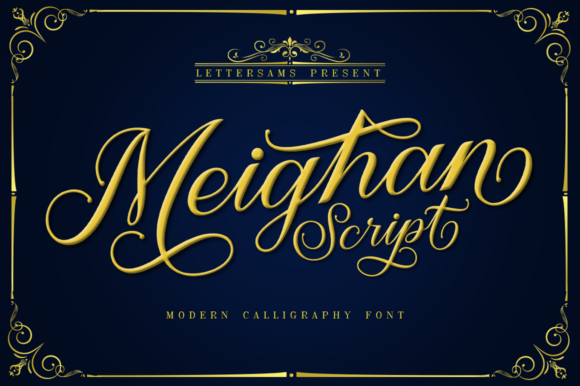
Meighan Script Font
Introducing Meighan Script Font, a script masterpiece from Lettersams, designed to add a touch of elegance and personalization to your creative projects. This modern calligraphy font exudes a timeless charm that will elevate your designs to new heights.
Embark on a journey of artistic expression with Meighan Script Font. Its thick, elegant strokes and playful personality bring a sense of sophistication to logos, labels, wedding invitations, brands, t-shirts, letterheads, signboards, news, book covers, magazines, posters, badges, and more.
Meighan Script Font's vintage aesthetic adds a touch of nostalgia to your designs, evoking a sense of history and tradition. Its versatility shines through its ability to blend seamlessly with various styles, from classic to contemporary. Whether you're crafting a heartfelt wedding invitation or creating a captivating brand identity, Meighan Script Font will leave an indelible mark.
With Meighan Script Font, your designs will captivate audiences and leave a lasting impression. Its unique character set and extensive language support make it a global font, catering to a diverse range of users. Unleash your creativity and let Meighan Script Font guide you towards design brilliance.
Embrace the beauty of written words with Meighan Script Font and transform your projects into captivating expressions of art. This font is not just a tool; it's a testament to the power of creativity and the enduring charm of timeless design.